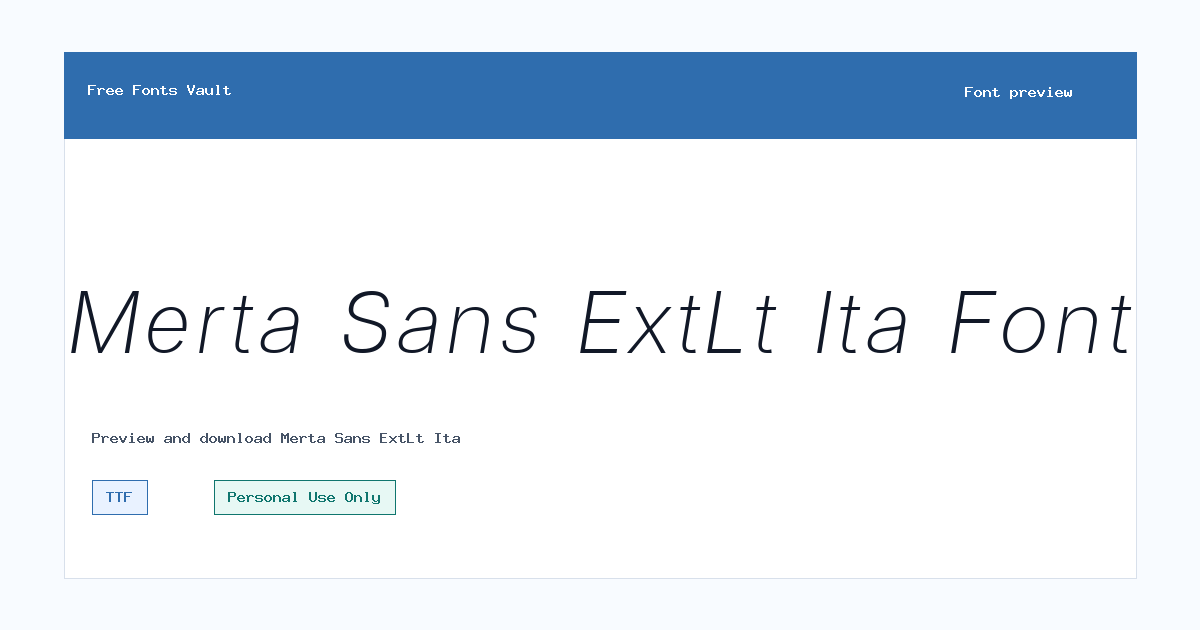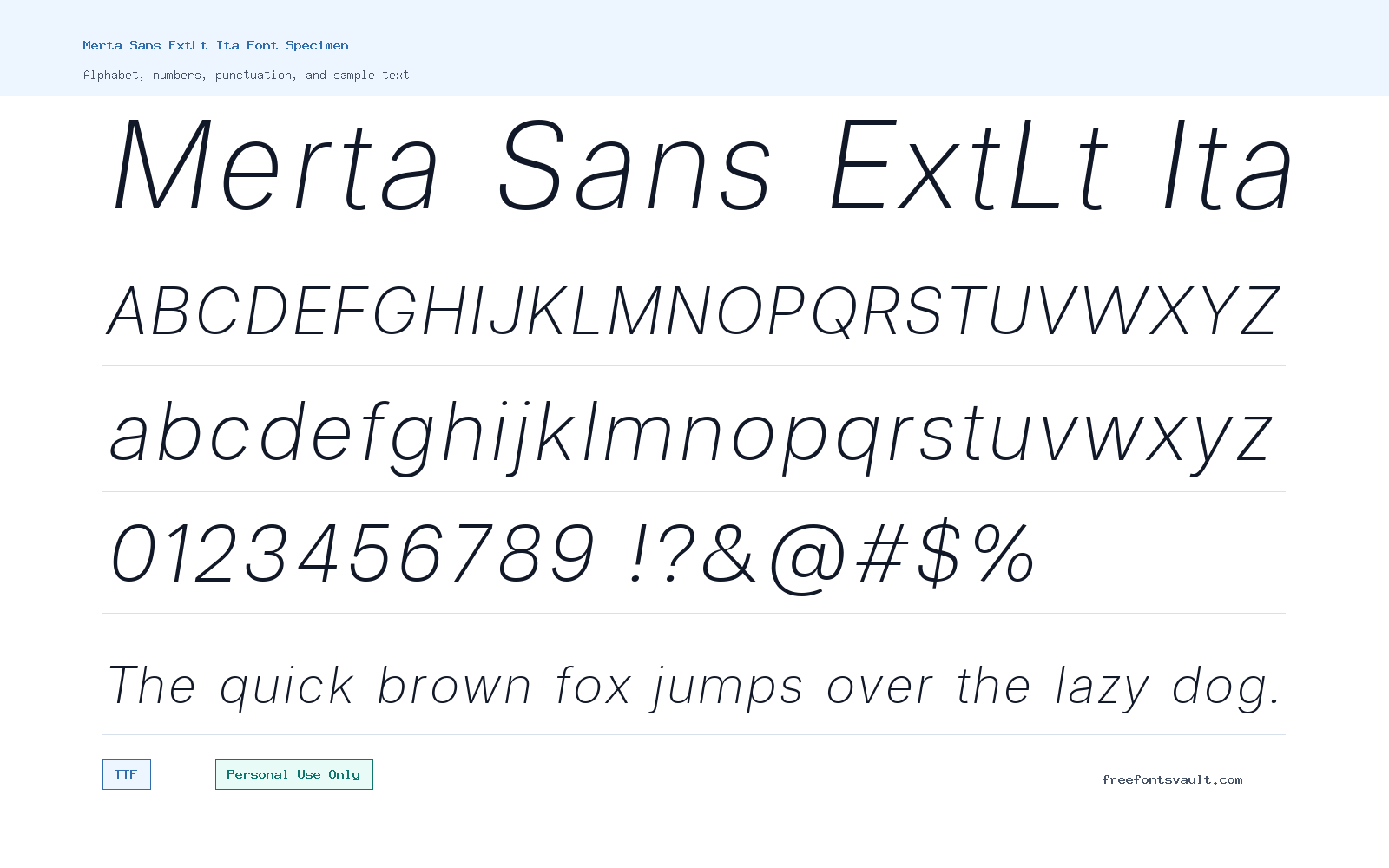
Merta Sans ExtLt Ita
- Designer Diki Pradipta Tri Atmojo
- Foundry Lettertype Studio Co.
Merta Sans ExtLt Ita font.
Merta Sans ExtLt Ita is a light italic sans serif font with a slim, angled style that works best when you want text to feel clean, airy, and a little more expressive than a plain upright sans.
About Merta Sans ExtLt Ita
Merta Sans ExtLt Ita is part of the Merta Sans Serif Font Family and is credited to Diki Pradipta Tri Atmojo of Lettertype Studio Co. The downloadable font file is a TTF, which makes it practical for desktop design apps and many font preview tools. Its Extra Light Italic style gives words a narrow, slanted rhythm, so it can add motion and refinement without using heavy decoration. Because this listing contains a single regular variant, the strongest use is not broad brand systems that need many weights, but focused typography where one elegant italic style is enough.
Use Merta Sans ExtLt Ita for short display lines, fashion-style captions, quote layouts, editorial headings, minimalist posters, web hero mockups, and logo concept exploration. The thin strokes can look graceful at larger sizes, but they may lose strength in small text, low-resolution previews, or busy backgrounds. If you are testing it for a logo, try the name in all lowercase, title case, and spaced capitals before deciding. For posters and social graphics, place it against a calm background and give the letters room to breathe. For web mockups, treat it as a display accent rather than a full paragraph face unless readability holds up in your actual layout.
- Extra Light Italic sans serif style with slim strokes and a gentle forward slant.
- Best suited to short, high-contrast typography rather than dense body copy.
- Minimal logo concepts and wordmark drafts
- Editorial headings, pull quotes, and magazine-style captions
- Poster titles, event graphics, and social media text treatments
- Website hero mockups, landing page accents, and UI presentation samples
- Elegant packaging mockups and mood-board typography tests
Merta Sans ExtLt Ita is credited to designer Diki Pradipta Tri Atmojo and foundry Lettertype Studio Co. The designer website is listed as lettertypestudio.com.
For the best results, test Merta Sans ExtLt Ita at display sizes first. Thin italic letters can look refined in large headings, but they often need strong contrast and generous spacing. Pair it with a sturdier upright sans serif for body text, navigation, captions, or longer explanations. A neutral sans in regular or medium weight can balance the light italic style without making the design feel crowded. Avoid pairing it with another delicate script or very thin serif unless the layout is intentionally soft and spacious.
What kind of font is Merta Sans ExtLt Ita?
It is a light italic sans serif font. The style is slim, clean, and slanted, making it better for display typography than long reading text.
Is this font good for body text?
It is better for short text. Extra light italic fonts can become hard to read in small sizes or long paragraphs, so pair it with a clearer regular-weight font for body copy.
What should I pair with Merta Sans ExtLt Ita?
Pair it with a simple upright sans serif in regular or medium weight. That gives your layout contrast while keeping the overall design clean.